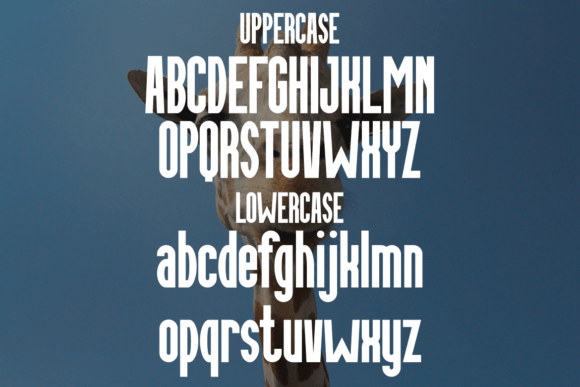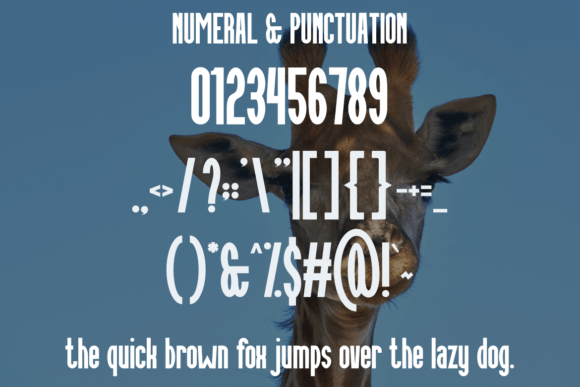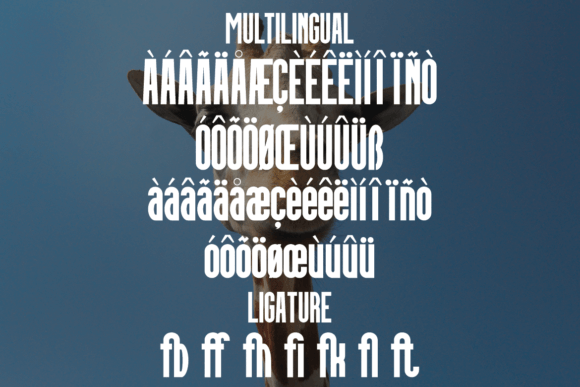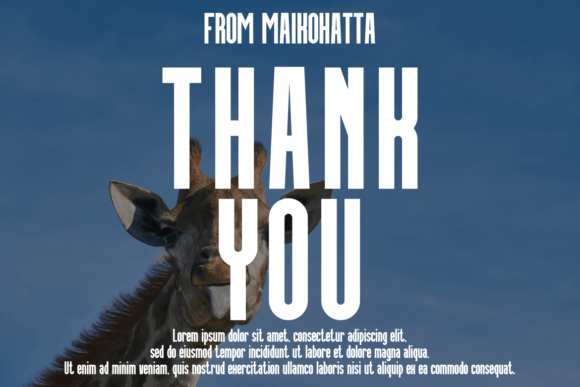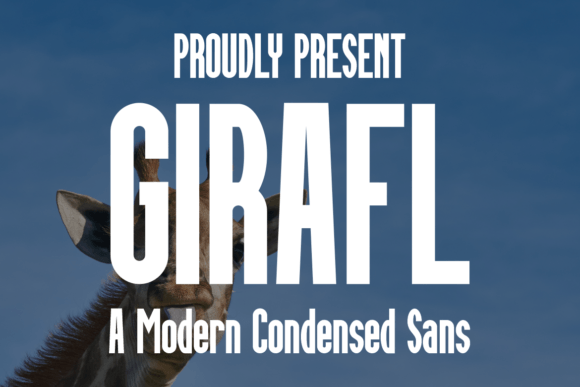
Introducing GIRAFL Font: The Modern Display Font for Bold Branding
Are you tired of using the same old fonts for your branding projects? Do you want to make a statement with your logo, template design, or esport? Look no further than GIRAFL Font, the modern display font that’s taking the design world by storm. In this article, we’ll dive into the features and benefits of GIRAFL Font and why it’s a must-have for designers and crafters.
What is GIRAFL Font?
GIRAFL Font is a bold and authentic display font designed to make your branding projects stand out. Its modern and sleek design makes it perfect for a wide range of contexts, from logos and template designs to esport and more. The font is carefully crafted to provide a unique and eye-catching look that’s sure to grab attention.
Key Features of GIRAFL Font
So, what makes GIRAFL Font so special? Here are some of its key features:
- Uppercase and Lowercase letters: The font includes both uppercase and lowercase letters, giving you flexibility and versatility in your designs.
- Multilingual support: GIRAFL Font supports multiple languages, making it perfect for global branding projects.
- Ligature: The font also includes ligature, which adds a touch of elegance and sophistication to your designs.
Why Choose GIRAFL Font?
With so many fonts available, why choose GIRAFL Font? Here are just a few reasons:
- Unique and eye-catching design: GIRAFL Font has a bold and authentic design that’s sure to grab attention and make your branding projects stand out.
- Versatile: The font is suitable for a wide range of contexts, from logos and template designs to esport and more.
- High-quality: GIRAFL Font is a high-quality font that’s designed to provide a professional and polished look.
- Experiment with different sizes and colors: GIRAFL Font looks great in a variety of sizes and colors, so don’t be afraid to experiment and find the look that works best for your project.
- Pair it with other fonts: GIRAFL Font pairs well with other fonts, so try combining it with a sans-serif font for a bold and modern look.
- Use it for headlines and titles: GIRAFL Font is perfect for headlines and titles, where its bold and eye-catching design can really make an impact.